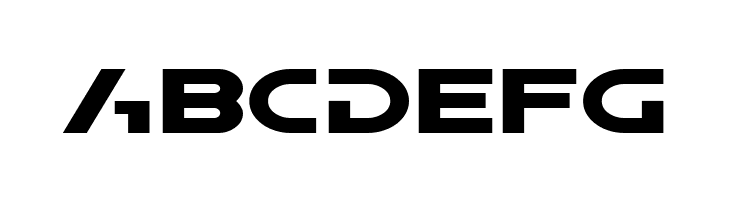
Hong Kong Hustle Expanded Font
- Font: Hong Kong Hustle Expanded Expanded
- Weight: Condensed
A bold, geometric font with a futuristic and digital aesthetic.